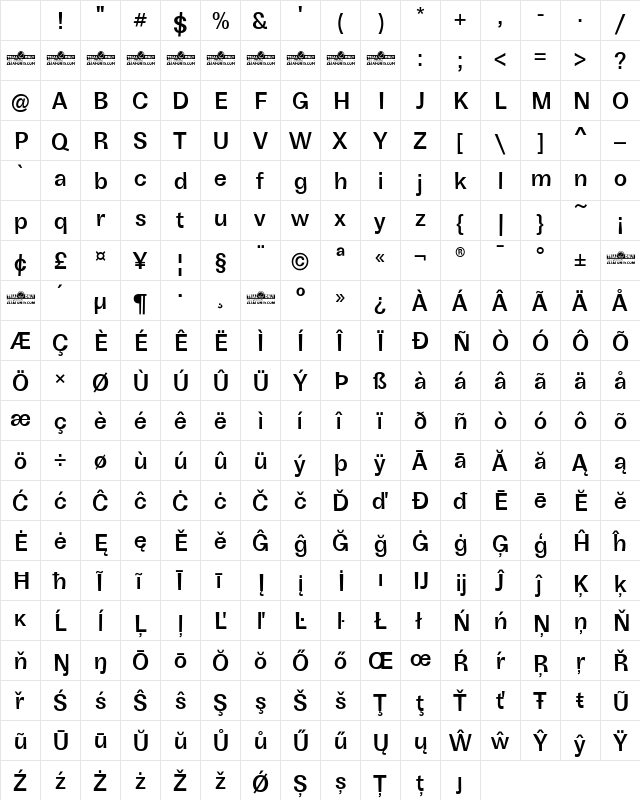
Complete Boring Sans B Trial Medium glyph index. Displaying only characters natively supported by Boring Sans B Trial Medium font.
Boring Sans B Trial is a composed and adaptable typeface that performs quietly and consistently across a wide range of design contexts.
Who designed the Boring Sans B Trial Medium font?